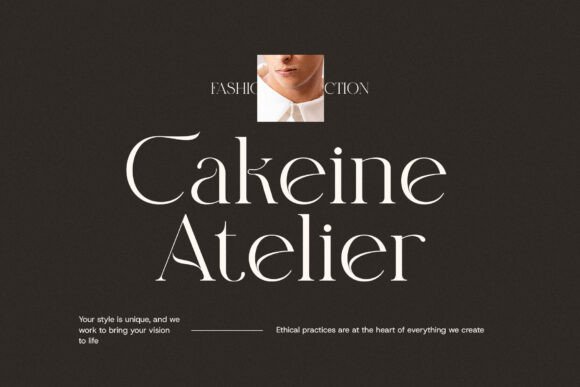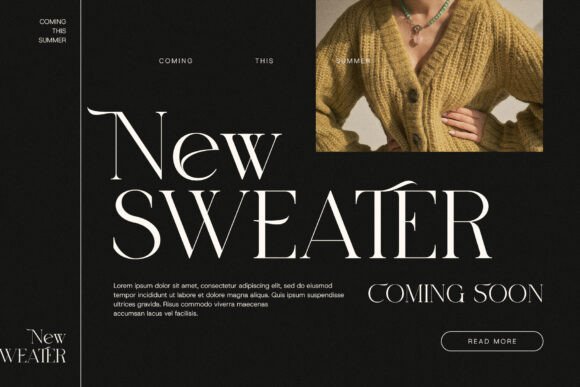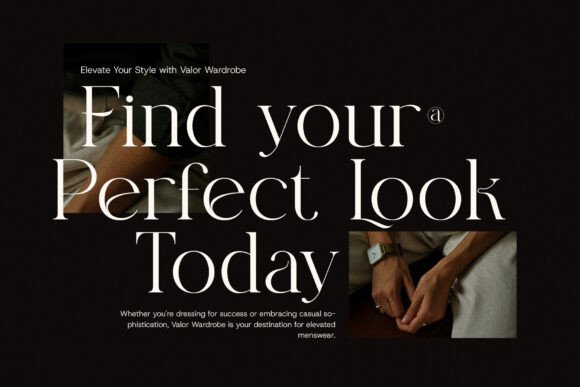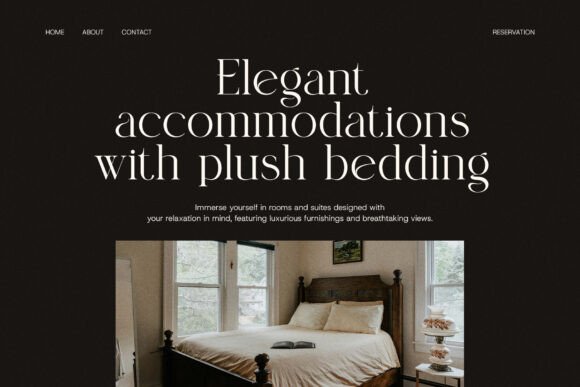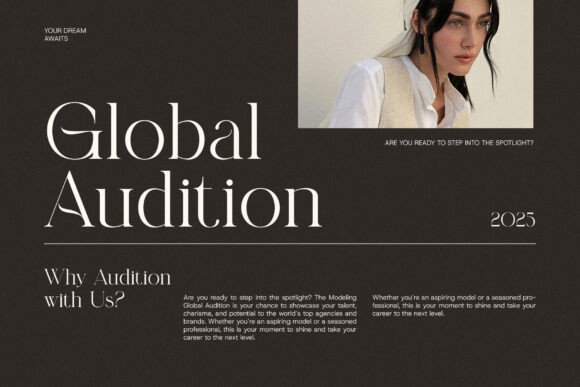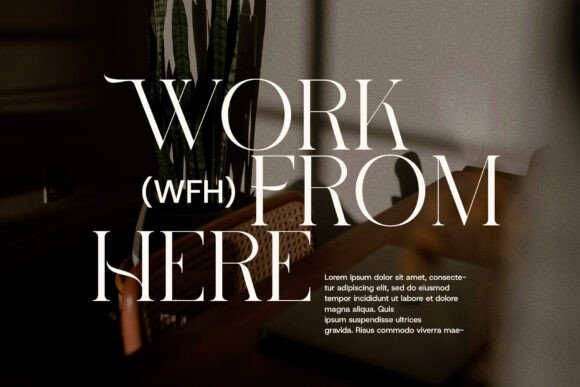
Introducing Bagink Font: Elevate Your Designs with Elegance and Sophistication
In the world of typography, a well-crafted font can make all the difference in elevating a design from ordinary to extraordinary. For designers and crafters seeking to add a touch of refinement and style to their projects, Bagink Elegant Serif Font is an exceptional choice. This sophisticated and contemporary serif typeface is designed to bring a sense of luxury and timelessness to any design, making it perfect for those who strive for perfection.
The Unique Charm of Bagink Font
Bagink Elegant Serif Font boasts a unique blend of classic serif elements and modern details, giving it a distinctive personality that sets it apart from other typefaces. Its graceful curves and clean lines make it an ideal choice for creating high-end, professional designs that demand attention. The font’s refined aesthetic is perfectly suited for logos, branding, and identity design, making it a versatile choice for businesses looking to make a lasting impression.
One of the standout features of Bagink Font is its versatility. Its elegant design works beautifully in both print and digital formats, making it perfect for a wide range of applications. Whether you’re designing websites, magazines, product packaging, or advertisements, Bagink Elegant Serif Font is an excellent choice. Its clarity and elegance also make it an excellent option for upscale boutiques, food branding, and luxury goods.
Crafted for Readability and Elegance
Bagink’s carefully crafted letterforms strike the perfect balance between elegance and readability. The font’s designer has paid meticulous attention to detail, ensuring that each letterform is not only beautiful but also easy to read. This balance ensures that Bagink Font stands out without overwhelming the viewer, making it perfect for designs where typography is the focal point.
Why Choose Bagink Font?
So, why should designers and crafters choose Bagink Font for their projects? Here are just a few compelling reasons:
- Unique and distinctive personality: Bagink Font offers a refreshing change from traditional serif typefaces, with its modern details and classic elegance.
- High-end designs: The font’s refined aesthetic and elegant design make it perfect for creating high-end, professional designs that demand attention.
- Versatility: Bagink Font works beautifully in both print and digital formats, making it a versatile choice for a wide range of applications.
- Readability and elegance: The font’s carefully crafted letterforms strike the perfect balance between elegance and readability, ensuring that it stands out without overwhelming the viewer.
Applications for Bagink Font
Bagink Font is an excellent choice for a wide range of design applications, including:
- Logos and branding: The font’s elegant design and distinctive personality make it perfect for creating memorable logos and branding materials.
- Websites and digital design: Bagink Font works beautifully in digital formats, making it an excellent choice for websites, social media graphics, and more.
- Print design: The font’s refined aesthetic and elegant design make it perfect for print design applications, such as magazines, brochures, and product packaging.
- Luxury goods and upscale boutiques: Bagink Font’s sophisticated and elegant design make it an excellent choice for luxury goods and upscale boutiques.
In conclusion, Bagink Elegant Serif Font is an exceptional choice for designers and crafters seeking to add a touch of refinement and style to their projects. Its unique blend of classic serif elements and modern details, combined with its elegant design and versatility, make it a standout typeface in the world of typography. Whether you’re designing logos, branding materials, websites, or print materials, Bagink Font is an excellent choice for creating high-end, professional designs that demand attention.